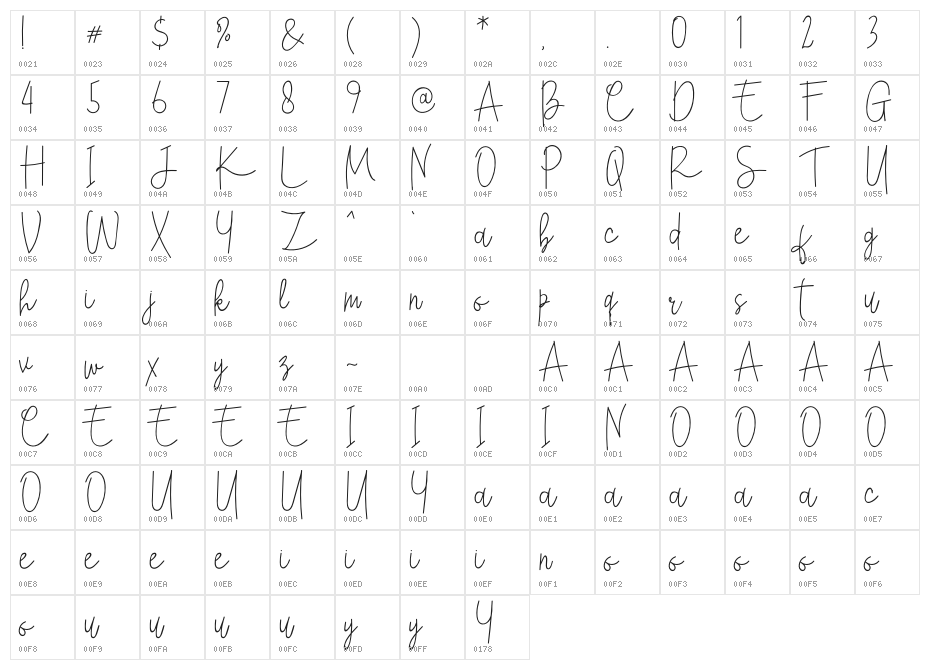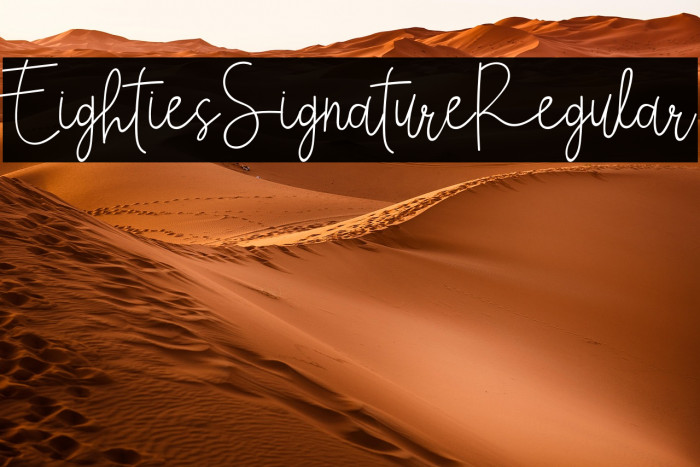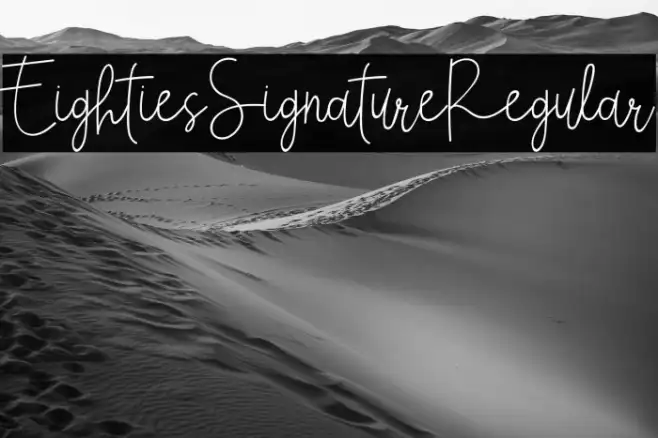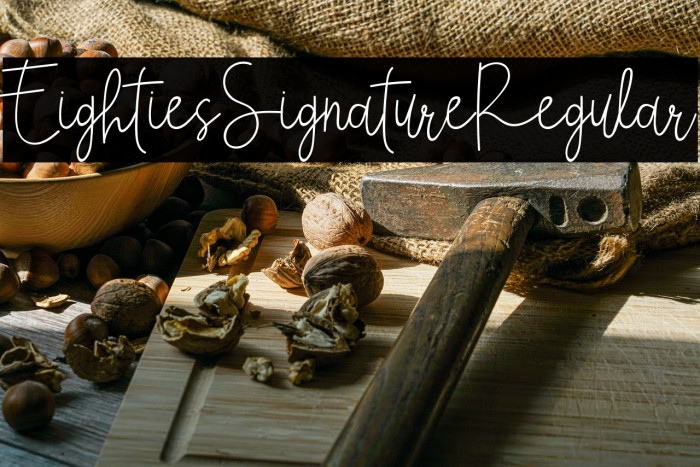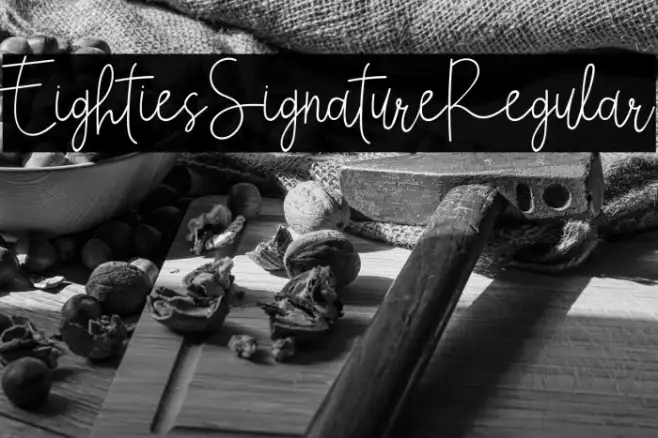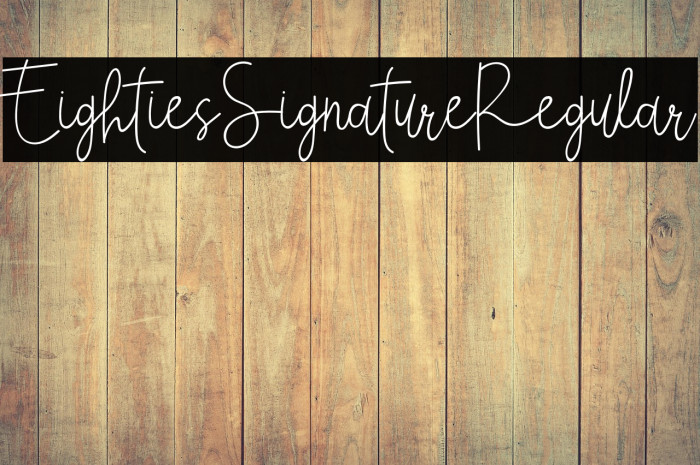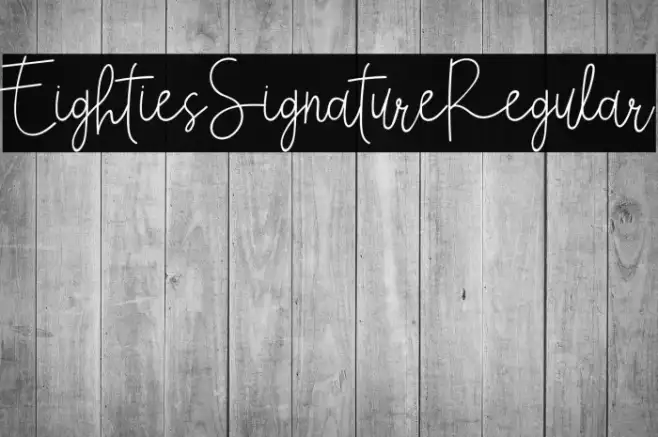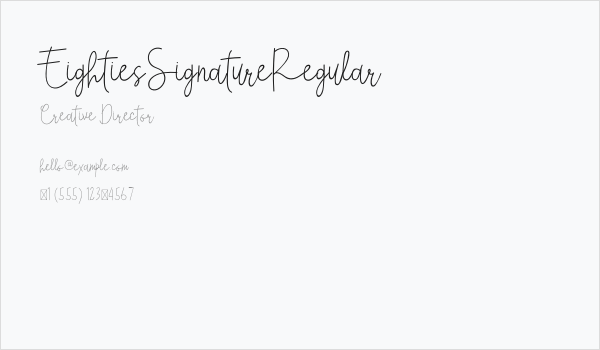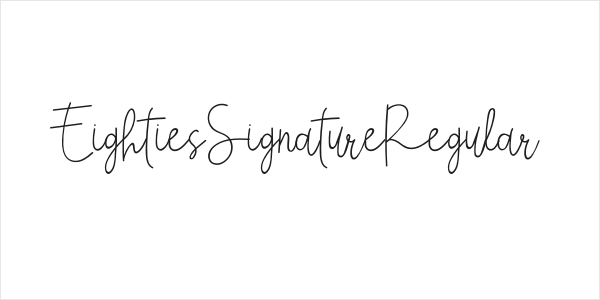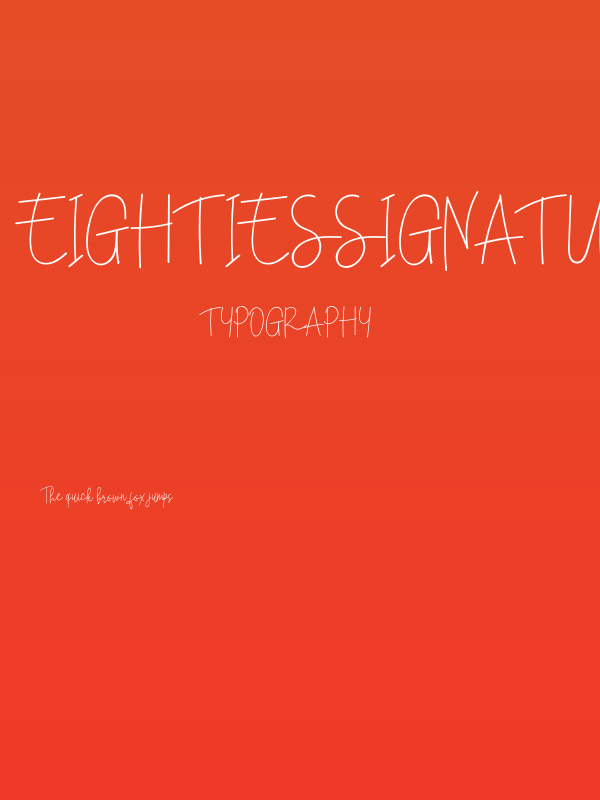
EightiesSignatureRegular Font
EightiesSignatureRegular Description
This font exudes a playful and casual handwritten style, reminiscent of personal notes or informal letters. The uppercase letters are tall and slender, with a slight slant that adds a dynamic flow. The lowercase characters are more fluid, with some letters connecting in a cursive manner, enhancing the handwritten feel. The numbers maintain the same slender and slightly slanted style, ensuring consistency across the font. Special characters are included, maintaining the playful and informal aesthetic. The overall design is light and airy, making it suitable for projects that require a personal touch.
| Use Case | Greeting cards, Invitations, Personal notes |
| Proposed Projects | Ideal for personal notes, greeting cards, invitations, and casual branding projects. |